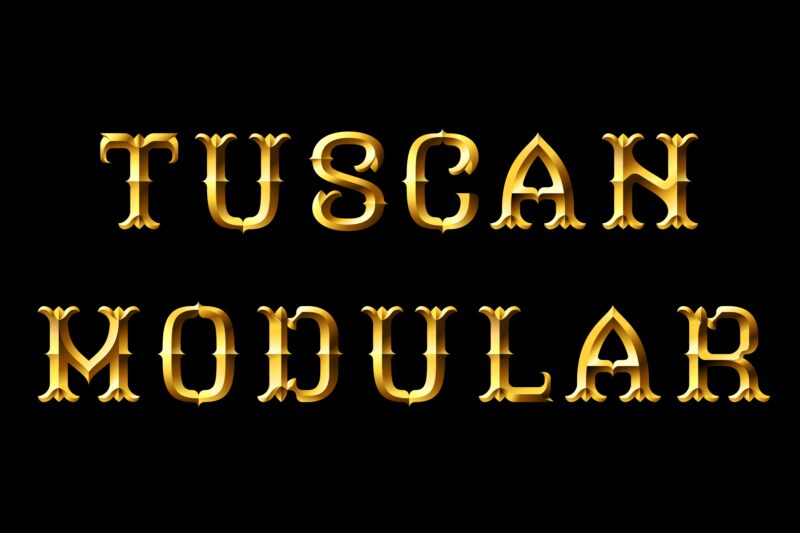
Tuscan Modular is a bold and decorative western-style color font with an etched effect designed by Thor Christopher Arisland.
Tuscan Modular
Tuscan Modular is an SVG colorfont with a golden etched effect.